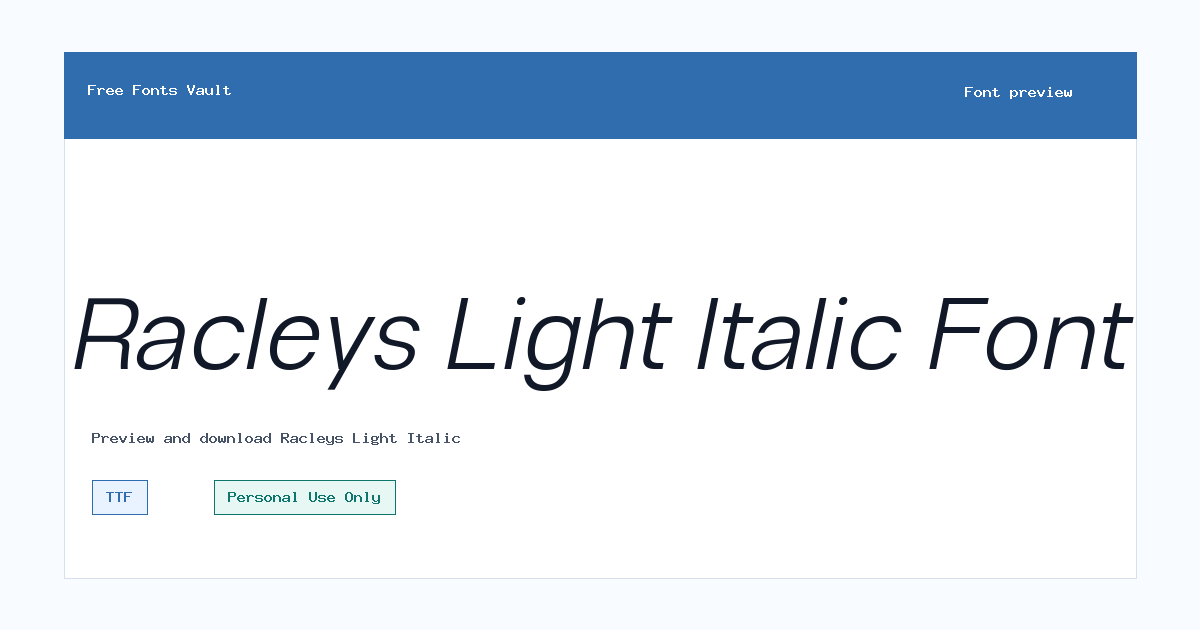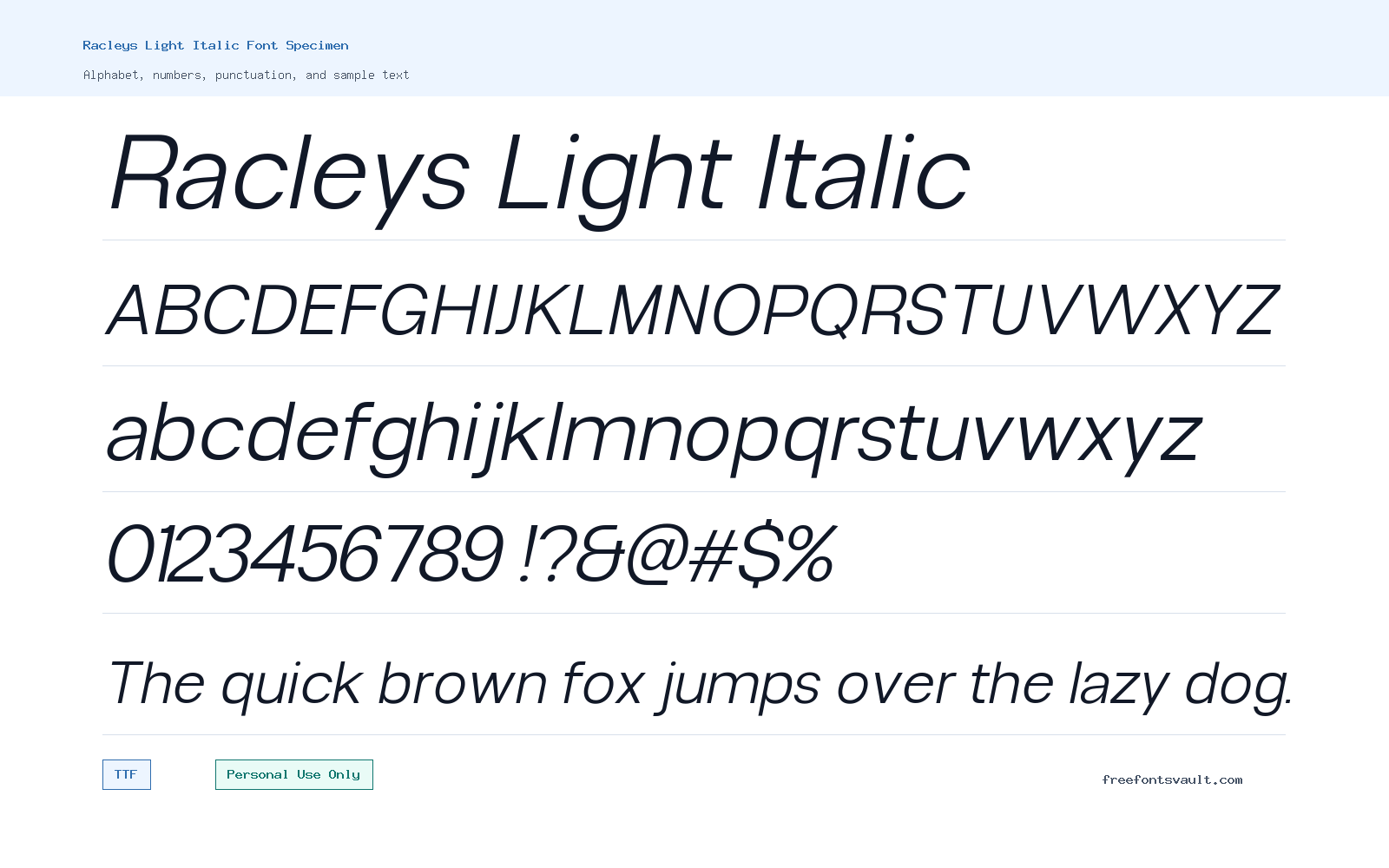
Racleys Light Italic
- Designer Glyphminds Studio (Graphicted.Co)
Racleys Light Italic is a light-weight italic font with a clean slant and a refined sans-serif feel. It is a practical choice when you want text to look calm, modern, and slightly expressive without becoming decorative or hard to read.
About Racleys Light Italic
Racleys Light Italic uses a 300-weight italic style, which gives it a slim appearance and a forward-leaning rhythm. That combination works well for short lines of text where a regular upright font might feel too plain. It can bring a soft editorial tone to headings, subheadings, nameplates, captions, pull quotes, and small branding details. Because it is light, it is best used where the design gives the letters enough space to breathe. Tight layouts, low contrast backgrounds, or very small sizes may make the strokes feel too delicate.
For visitors testing the font, start with the words you actually plan to use. Try a brand name, poster headline, button label, quote, or short title in the preview tool. Look closely at spacing, letter combinations, and how the italic angle changes the mood of the phrase. Racleys Light Italic may suit logo drafts, fashion-style layouts, invitation concepts, minimalist posters, portfolio headers, social graphics, and web mockups. For longer text, pair it with a more neutral upright sans-serif so the italic style can act as an accent instead of carrying every paragraph.
- Light 300-weight italic style for soft, refined emphasis
- Sans-serif look that can support modern headings, captions, and branding tests
- Works best in short text, display use, and accent typography
- Logo concepts and brand name previews
- Poster headlines and event graphics
- Editorial-style pull quotes or captions
- Website hero mockups and portfolio headers
- Social media graphics with short, elegant text
- Invitation drafts, moodboards, and presentation titles
Use Racleys Light Italic as an accent font rather than a full body-text family. Its light italic shape can look polished in short headings, but it may lose clarity at small sizes or on busy backgrounds. Pair it with a simple upright sans-serif for body copy, navigation, product details, or longer descriptions. In logo work, test the exact name in uppercase, lowercase, and title case before committing, because italic spacing can change how a word feels. For posters and web mockups, give it generous line spacing and strong contrast so the lighter strokes remain readable.
What style is Racleys Light Italic?
It is a light italic style with a 300 font weight. The slanted shape makes it useful for emphasis, headings, logo drafts, and short display text.
Is this font good for long paragraphs?
It is better for short text. Because it is light and italic, long paragraphs may become tiring to read, especially at small sizes.
What should I pair with Racleys Light Italic?
Pair it with a clean upright sans-serif for body text. Let Racleys Light Italic handle headings, quotes, labels, or small brand accents.